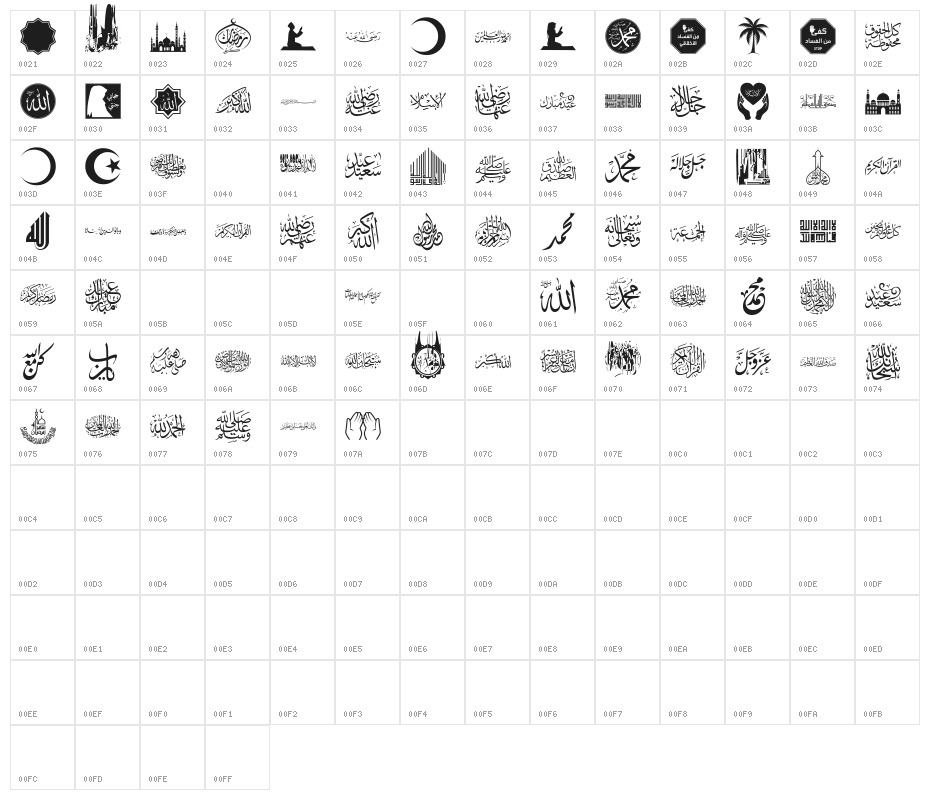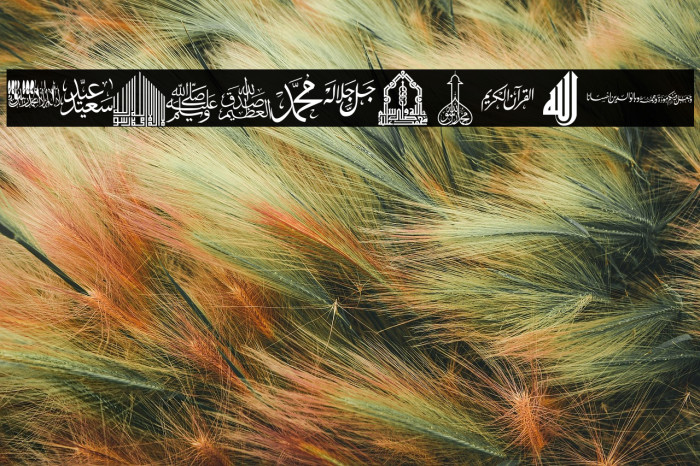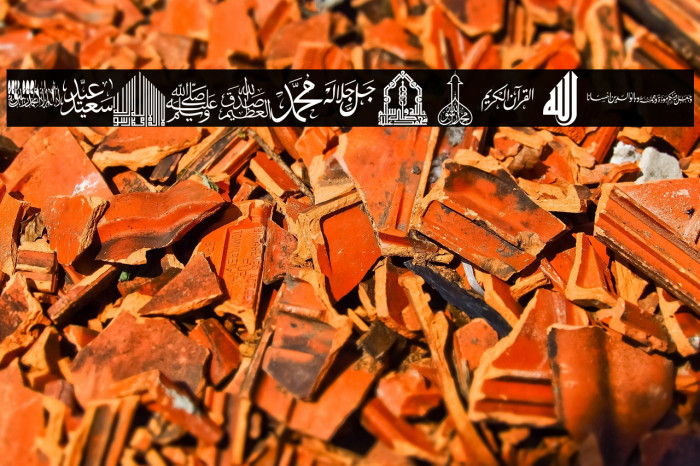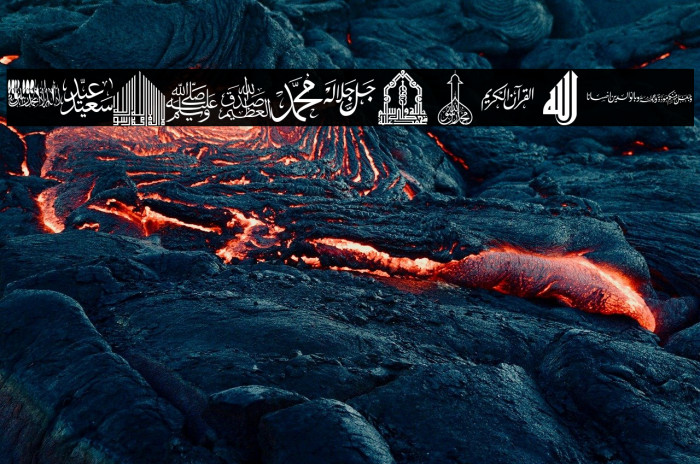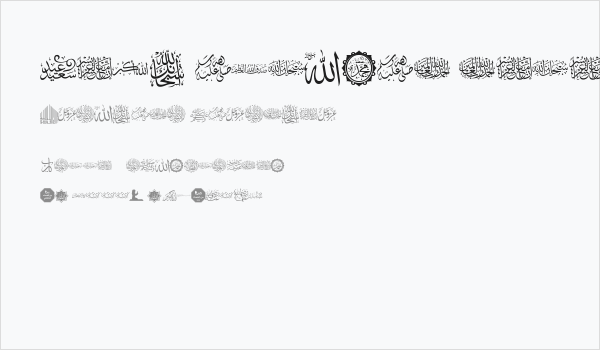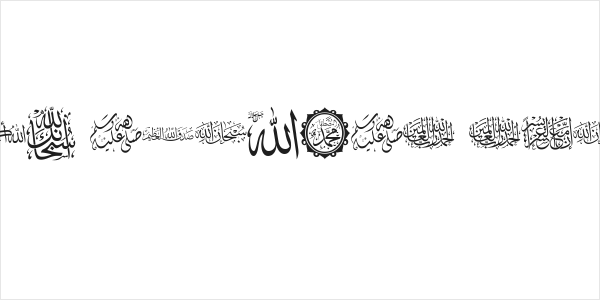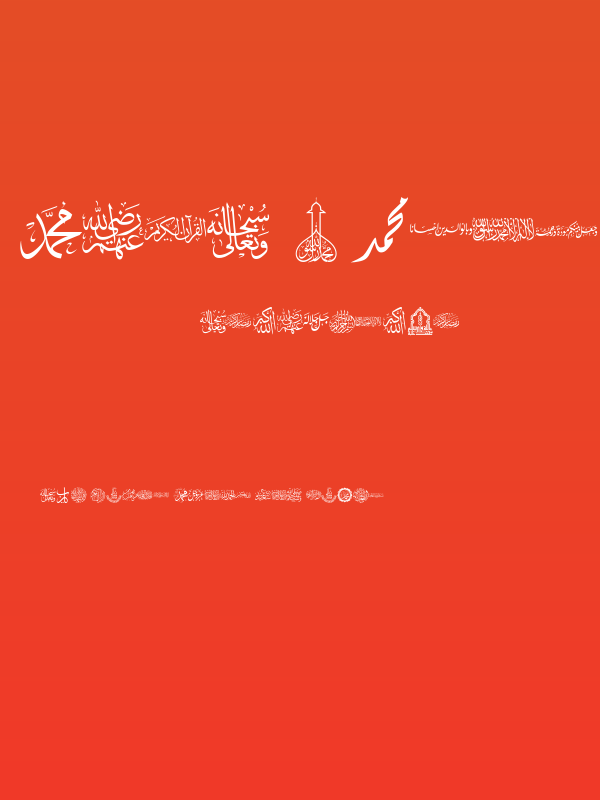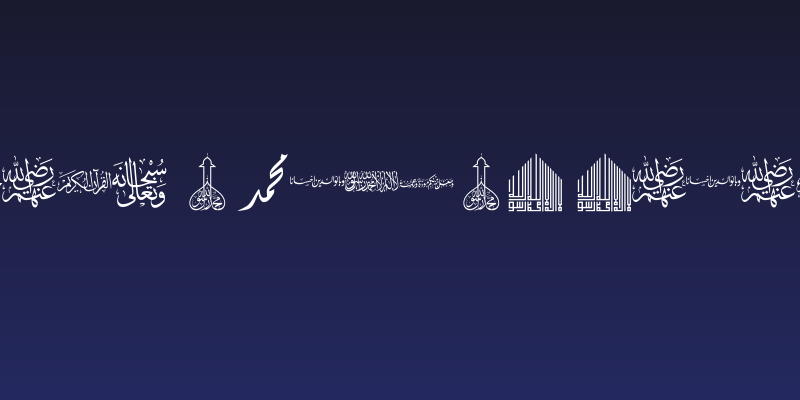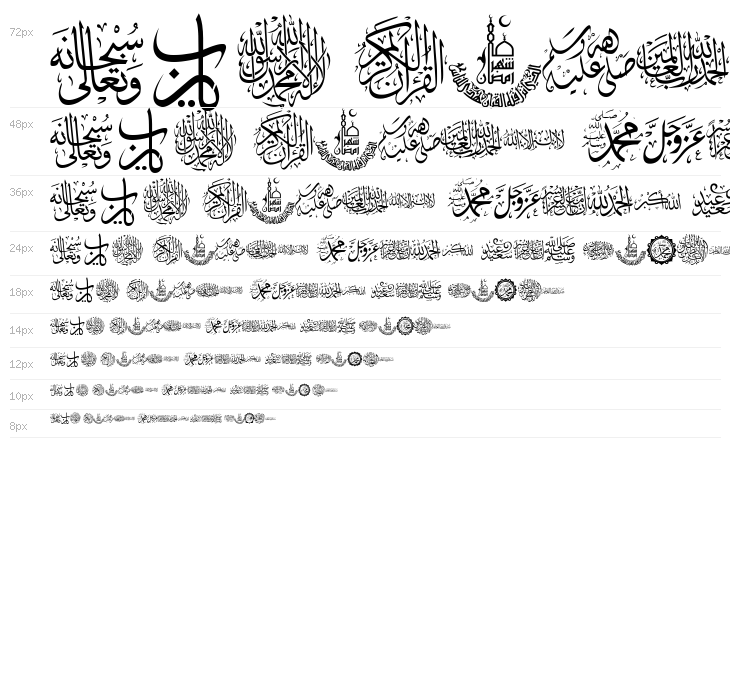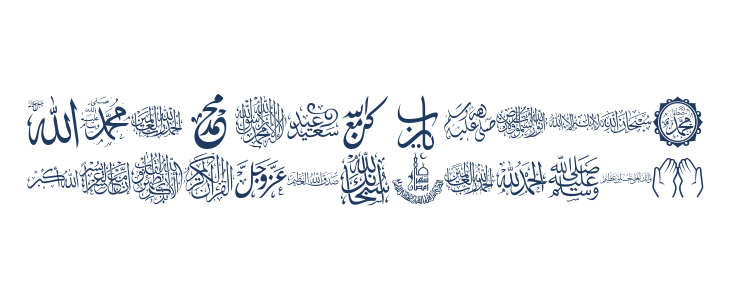
This font features intricate Arabic calligraphy with religious and Islamic motifs, including phrases, symbols, and decorative elements. The style is highly ornamental, with varying stroke thicknesses and complex ligatures, often incorporating traditional Islamic art forms and iconography.
| Overall Style | Decorative, Traditional, Religious |
| Use Case | Logos, Decorative headings, Religious texts, Posters |
| Proposed Projects | Religious publications, event invitations, cultural posters, mosque decorations, educational materials, logo design for Islamic organizations. |